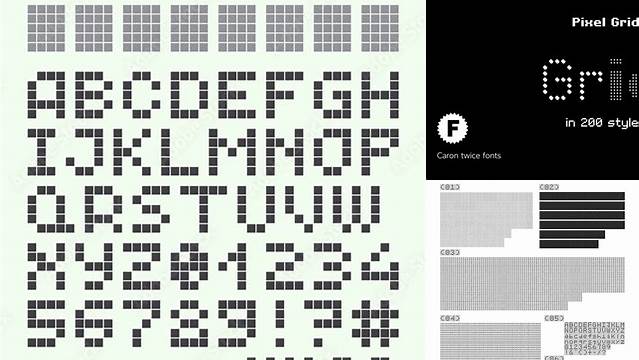
Hey guys! Ever found yourself needing that perfect pixel grid font for your mid-sized designs? You know, the kind that just screams retro, techy, or maybe even a bit of vintage gaming? Well, you've come to the right place! Let’s dive into the world of pixel grid fonts, specifically focusing on the sweet spot – mid-sized fonts that are free to download. We'll explore why they're awesome, where to find them, and how to use them effectively. Get ready to level up your design game!
Pixel Grid Font: An Introduction
Pixel grid fonts, as the name suggests, are fonts designed using a grid of pixels. This gives them a distinctive, blocky appearance that’s reminiscent of old computer screens and video game consoles. They're not just about nostalgia, though; pixel fonts can be incredibly effective for creating a specific aesthetic or conveying a particular message. When you're looking for that perfect blend of retro charm and modern usability, pixel grid fonts are often the way to go. These fonts bring a unique flavor to any design, adding character and visual interest that other font styles simply can't match. Think of them as the seasoning that takes your creative dish from bland to bam!
What Makes Pixel Grid Fonts Unique?
Okay, so what's the big deal about pixel grid fonts? Well, their uniqueness stems from their inherent simplicity and clarity. Each character is meticulously crafted using a limited number of pixels, which results in a very distinctive and recognizable look. This also means they can be incredibly legible, especially at specific sizes. The blocky nature of pixel fonts lends itself well to designs that need to convey a sense of technology, retro-futurism, or even just plain fun. Plus, the constraints of the pixel grid force designers to be creative and efficient with their letterforms, resulting in fonts that are both functional and visually appealing.
Why Choose a Mid-Sized Pixel Grid Font?
When it comes to pixel grid fonts, size matters! Mid-sized fonts strike a balance between readability and impact. Too small, and they might become illegible or get lost in the noise. Too large, and they can overwhelm your design and lose some of their pixelated charm. Mid-sized fonts offer the perfect middle ground, providing enough detail to maintain their unique character while still being easy to read and visually appealing. They're ideal for headers, subheadings, body text (depending on the context), and various UI elements. Think of them as the Goldilocks of pixel fonts – not too big, not too small, but just right!
Free Pixel Grid Fonts: Where to Find Them
How to Use Pixel Grid Fonts Effectively
So you've got your hands on some awesome pixel grid fonts – now what? Here are a few tips for using them effectively in your designs:
- Consider the context: Pixel fonts work best in designs that evoke a sense of technology, retro gaming, or vintage computing. Use them in the right context to maximize their impact.
- Pair them wisely: Choose complementary fonts that balance the pixelated look. Sans-serif fonts often work well as body text alongside a pixel grid header.
- Mind the spacing: Adjust the letter spacing and line height to ensure readability, especially in longer blocks of text.
- Use color effectively: Experiment with different color combinations to enhance the retro feel or create a modern, techy vibe.
- Don't overuse them: Like any design element, pixel fonts can lose their impact if overused. Use them sparingly to highlight key elements and create visual interest.
The Appeal of 8-bit Style Typography
Digging into the retro vibes, the 8-bit style in typography carries a unique charm. These fonts remind us of the early days of video games and personal computing, bringing a sense of nostalgia and simplicity. The blocky, pixelated look is instantly recognizable and can add a playful, vintage touch to any design. Whether you're creating a gaming website, a retro-themed poster, or just want to add some fun to your project, 8-bit typography is a fantastic choice. The boldness and clarity of each character make it stand out, ensuring your message is both seen and remembered.
Creating a Retro Gaming Aesthetic with Fonts
Want to create that totally rad retro gaming aesthetic? Choosing the right fonts is key. Think about the fonts used in classic games like Super Mario Bros., Pac-Man, and Space Invaders. These fonts are usually blocky, pixelated, and easy to read on low-resolution screens. Using similar fonts in your designs can instantly transport your audience back to the golden age of gaming. Pair these fonts with other retro elements like pixel art, vibrant colors, and chiptune music to complete the effect. You'll have your audience saying "Game On!" in no time.
Pixel Fonts in Web Design: A Modern Twist
Who says pixel fonts are only for retro designs? Pixel fonts can also add a modern twist to web design. By incorporating these fonts into your website, you can create a unique and memorable user experience. Use them sparingly for headings, logos, or special callouts to draw attention and create visual interest. Consider pairing them with clean, modern sans-serif fonts for body text to ensure readability. This combination creates a visually striking contrast that can elevate your website's design. Who knew retro could be so chic?
Designing Logos with Pixel Grid Fonts
Using pixel grid fonts for logos can be a bold and creative move. These fonts give your logo a distinctive, tech-inspired look that can make it stand out from the crowd. When designing a logo with pixel fonts, keep it simple and memorable. The blocky nature of these fonts can be challenging, so focus on creating a clean and recognizable design. Consider using vibrant colors and bold outlines to enhance the visual impact. A well-designed pixel font logo can be incredibly effective in conveying a sense of innovation and creativity.
The Art of Font Pairing with Pixel Typography
Font pairing can be tricky, especially when working with pixel typography. The key is to find a font that complements the pixelated look without overpowering it. Clean, modern sans-serif fonts are often a good choice. They provide a visual contrast that makes the pixel font stand out while maintaining readability. Avoid using ornate or overly decorative fonts, as they can clash with the simplicity of the pixel font. Experiment with different combinations until you find a pairing that feels balanced and harmonious. Remember, the goal is to create a visually appealing design that is easy to read and understand.
Pixel Font Sizing: Finding the Perfect Fit
Getting the sizing right for your pixel fonts is super important. These fonts can look amazing, but if they're too small, they become unreadable, and if they're too big, they can overwhelm your design. Mid-sized pixel fonts are often the sweet spot because they balance readability with that cool, pixelated vibe. Experiment with different sizes to see what works best for your specific project. Also, keep in mind where the font will be displayed—a website, a poster, or a video game—because this can affect how the font looks.
Exploring Different Weights of Pixel Grid Fonts
Who knew pixel fonts could have different weights? Okay, maybe not exactly like regular fonts, but you can definitely play around with the boldness and thickness of the pixels to create a similar effect. A bolder pixel font can really grab attention and make a statement, while a lighter one can be more subtle and refined. Try using different weights for different elements in your design, like bold for headings and lighter for body text, to create a clear visual hierarchy.
Pixel Grid Fonts for User Interfaces (UI)
Using pixel grid fonts in user interfaces (UI) can add a unique retro touch. They're great for creating a nostalgic feel, especially in apps or websites that are inspired by older technology. However, it's super important to make sure they're still readable! Pixel fonts can sometimes be hard on the eyes, so use them sparingly for things like headings, buttons, or icons. Pairing them with a clean, modern font for the main text can help balance the retro vibe with usability.
Pixel Fonts in Game Development: A Classic Choice
When it comes to game development, pixel fonts are a total classic. They perfectly capture the look and feel of old-school video games. Whether you're making a retro-style platformer or an RPG with a nostalgic twist, pixel fonts can instantly transport players back in time. Just make sure the font is easy to read on different screen sizes and resolutions. A well-chosen pixel font can be the key to making your game feel authentic and engaging.
Free Pixel Fonts for Commercial Use: What to Watch Out For
Finding free pixel fonts for commercial use can be a bit tricky, but it's definitely possible. The main thing is to double-check the license before you use the font in any project that you plan to make money from. Some fonts might be free for personal use but require a license for commercial projects. Websites like DaFont and FontSpace are great resources, but always read the fine print! It's better to be safe than sorry and end up with a copyright issue.
Creating Pixel Art Typography: A DIY Approach
Feeling creative? Why not try creating your own pixel art typography? It's a fun and rewarding way to make your designs truly unique. You can use software like Photoshop or even free online pixel art editors to design each letter pixel by pixel. It takes some time and effort, but the result is a one-of-a-kind font that perfectly matches your style. Plus, you'll learn a lot about typography and pixel art along the way!
The Psychology of Pixel Fonts: Evoking Nostalgia
There's something about pixel fonts that just screams nostalgia. They remind us of simpler times, old computer games, and the early days of the internet. This nostalgic feeling can be a powerful tool in design. By using pixel fonts, you can tap into your audience's memories and emotions, creating a connection that goes beyond just the visual. Whether you're designing a retro-themed website or a vintage-inspired poster, pixel fonts can help you evoke those warm, fuzzy feelings of nostalgia.
Pixel Fonts and Accessibility: Ensuring Readability
While pixel fonts can look cool, it's super important to think about accessibility. These fonts aren't always the easiest to read, especially for people with visual impairments. Make sure to choose a pixel font that's clear and legible, and consider increasing the font size or using a high-contrast color scheme. You can also provide alternative text or styles for users who need them. The goal is to create a design that looks great and is accessible to everyone.
The Future of Pixel Fonts: Trends and Innovations
Believe it or not, pixel fonts are still evolving. Designers are finding new and creative ways to use them in modern designs. We're seeing pixel fonts combined with 3D effects, animations, and interactive elements. There's also a growing trend of using pixel fonts in virtual reality and augmented reality applications. Who knows what the future holds? One thing's for sure: pixel fonts are here to stay, and they're going to keep surprising us with their versatility and charm.
Best Software for Designing with Pixel Fonts
Okay, so you're ready to dive into the world of pixel font design? Great! But what software should you use? Well, there are tons of options out there, from free online editors to professional-grade tools. Photoshop is a classic choice for creating pixel art, but you can also use software like Aseprite, Pyxel Edit, or even free online tools like Piskel. The best software for you will depend on your budget, skill level, and specific needs. Experiment with a few different options to see what works best for you.
Integrating Pixel Fonts into Your Brand Identity
Want to make your brand identity stand out? Try incorporating pixel fonts into your logo, website, or marketing materials. Pixel fonts can give your brand a unique, tech-inspired look that sets you apart from the competition. Just make sure the font aligns with your brand's overall message and target audience. A well-chosen pixel font can be a powerful way to communicate your brand's personality and values.
Pixel Fonts and Color Palettes: Creating Visual Harmony
The color palette you choose can have a big impact on how your pixel fonts look. Certain colors can enhance the retro vibe, while others can make the font look more modern and sleek. Try using bold, vibrant colors like neon greens, pinks, and blues for a classic arcade look. Or, go for a more minimalist approach with black and white or grayscale colors. Experiment with different color combinations to see what creates the most visually appealing and harmonious design.
Mastering Kerning and Tracking with Pixel Fonts
Kerning and tracking are super important for making your pixel fonts look their best. Kerning is the space between individual letters, while tracking is the overall spacing of the entire text. With pixel fonts, even small adjustments can make a big difference. Pay close attention to the spacing between letters to ensure readability and visual balance. A well-kerned and tracked pixel font will look professional and polished.
Pixel Fonts in Motion Graphics: Adding Dynamic Flair
Adding pixel fonts to motion graphics can create a super cool and dynamic effect. Imagine pixelated text flying across the screen, glitching, and transforming in creative ways. This can add a sense of energy and excitement to your videos or animations. Experiment with different animation techniques to see what works best for your style. Pixel fonts in motion graphics are a great way to grab attention and make your content stand out.
The Use of Pixel Fonts in Mobile App Design
Using pixel fonts in mobile app design can be a fun way to add a retro touch to your app. However, it's super important to make sure the font is readable on smaller screens. Choose a pixel font that's clear and legible, and consider increasing the font size or using a high-contrast color scheme. You can also use pixel fonts for icons and other UI elements to create a cohesive retro aesthetic.
Common Mistakes to Avoid When Using Pixel Fonts
Okay, let's talk about some common mistakes people make when using pixel fonts. First, don't use them for large blocks of text! Pixel fonts can be hard to read in large quantities. Second, don't use too many different pixel fonts in one design. This can create a cluttered and confusing look. Third, don't forget about accessibility! Make sure your pixel fonts are readable for everyone. Avoiding these mistakes will help you create designs that look amazing and are easy to use.
Exploring Monospaced Pixel Fonts for Coding and Design
Monospaced pixel fonts are where each character takes up the same amount of horizontal space, and they are great for coding and design. This makes them easy to read and helps keep your code or design layout clean and organized. Many programmers and designers prefer monospaced pixel fonts because they make it easier to spot errors and align elements. Plus, they have that cool, retro vibe that everyone loves.
Pixel Font Generators: Automating the Creation Process
Don't want to create your own pixel font from scratch? No problem! There are plenty of pixel font generators out there that can help you automate the creation process. These tools allow you to customize various aspects of your font, such as the pixel size, weight, and style. You can then download your custom font and use it in your designs. Pixel font generators are a great way to save time and create unique fonts that perfectly match your style.
The Role of Pixel Fonts in Vintage and Retro Design Trends
Vintage and retro design trends are all the rage these days, and pixel fonts play a huge role in capturing that nostalgic look. These fonts transport us back to the early days of technology and gaming, evoking feelings of nostalgia and simplicity. Whether you're designing a retro-themed website, a vintage-inspired poster, or a classic video game, pixel fonts are essential for creating an authentic and engaging experience. They're a timeless design element that will always be cool.